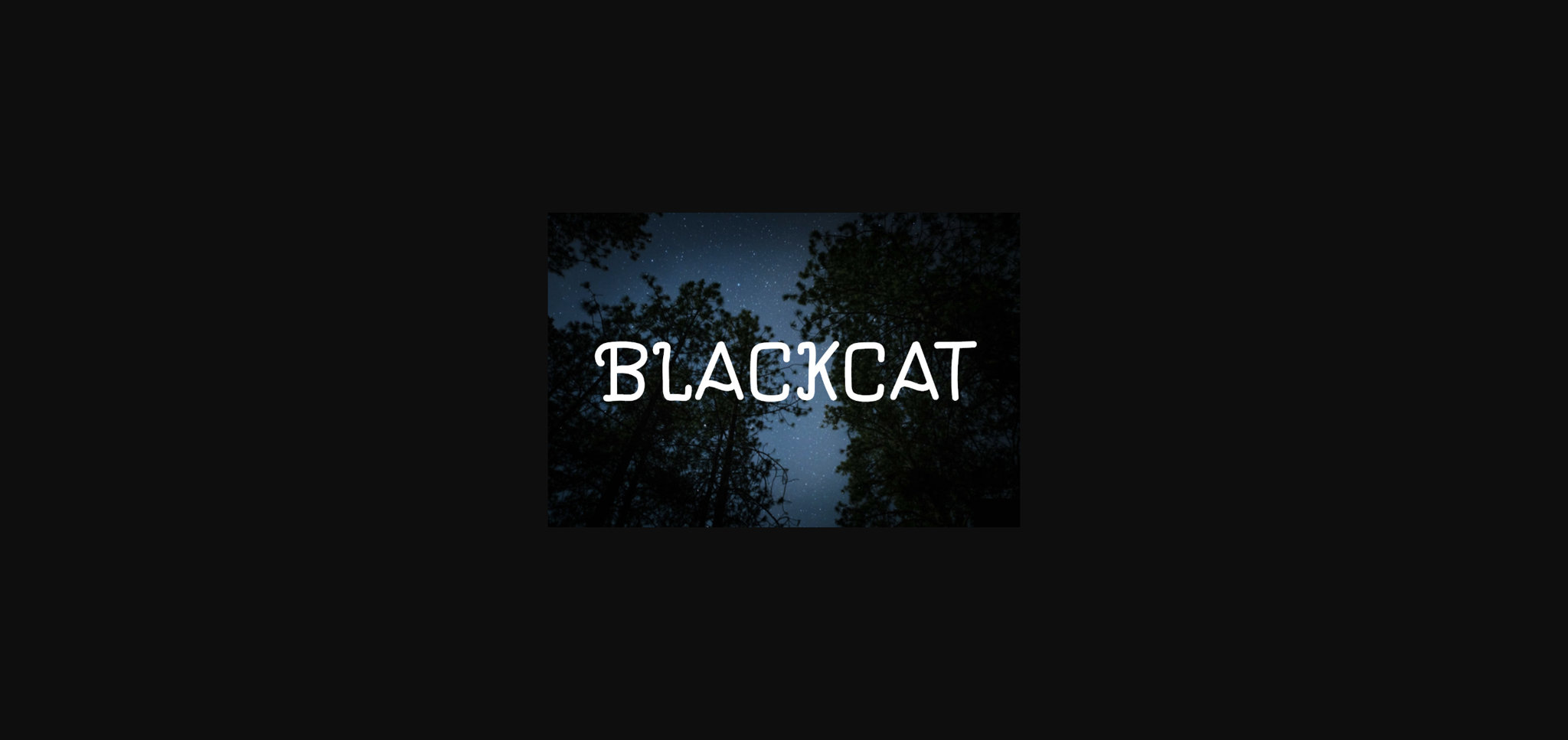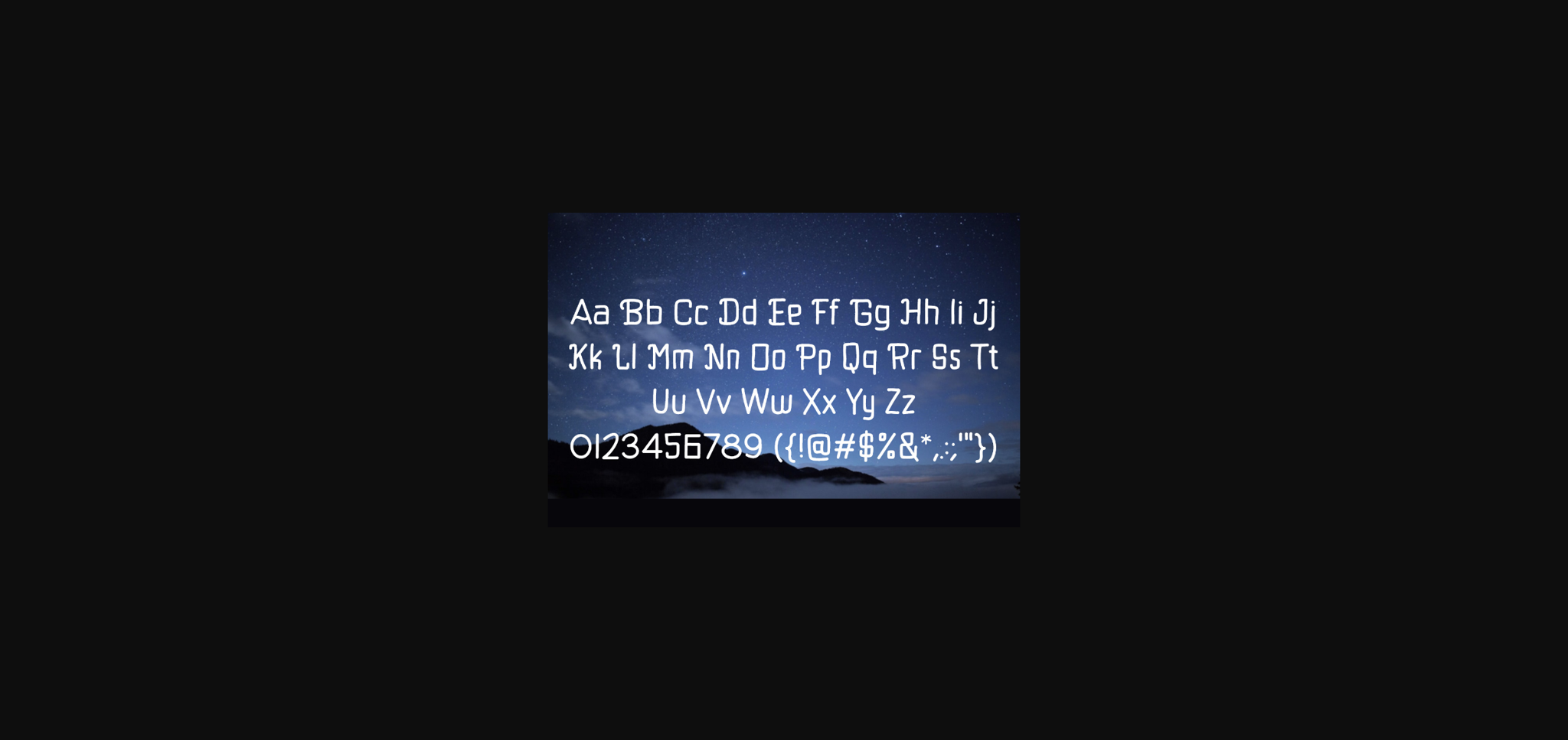
Blackcat is a fun and quirky sans-serif font. No matter the topic, this font will be an incredible asset to your fonts’ library, as it has the potential to elevate any creation.